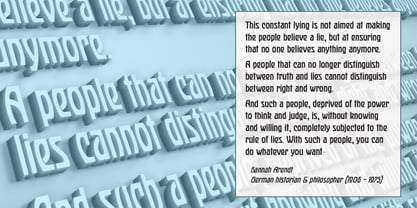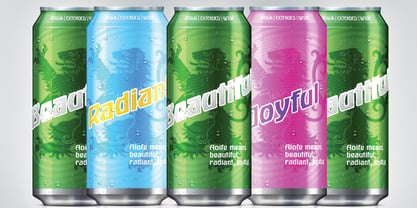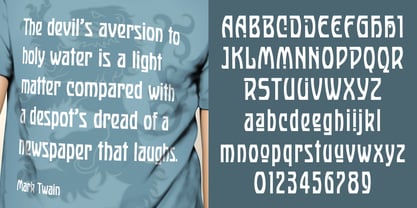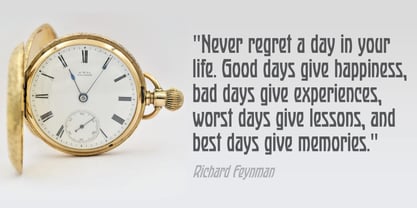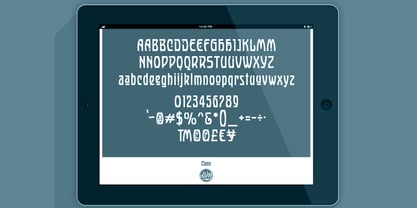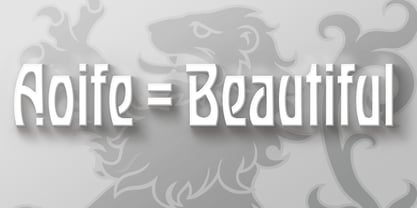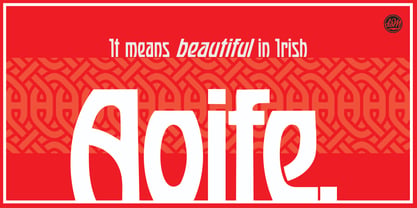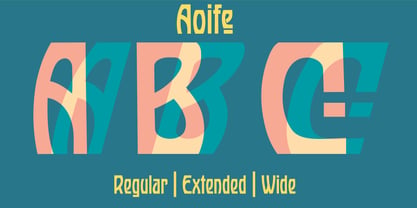
Aoife
The Aoife Font Family was designed by Matthew Gallagher and published by designoMatt. Aoife contains 6 styles and family package options. More about this family
Aoife is a font family inspired by a sample found in a 1914 book entitled “Art Alphabets and Lettering” by J.M. Bergling. It is a tremendous book with amazing samples of typography that were being used across publications of that era.
Aoife, is Irish for beautiful, radiant, or joyful, and is built with letterforms and glyphs that are decorative but also readable for headlines as well as typeset segments of text. And although it can be easily read in typeset, much of its impact will most likely be had when it is used in headlines, logos, and other decorative uses for brands and campaigns.
This family includes the extended Latin set as well as Welsh characters as alternates on select glyphs.